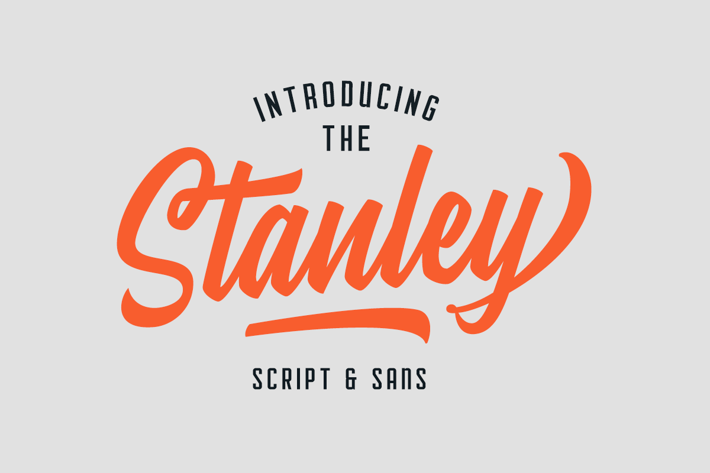
Stanley Font Duo
Stanley is a family of TWO script font designed with carefully handcrafted. Also suitable for branding, T-shirt, Wedding Invitation, Vintage Design, Logotype, and any project. With two style make you easier to design everythings, and a sans bonus to make better design.